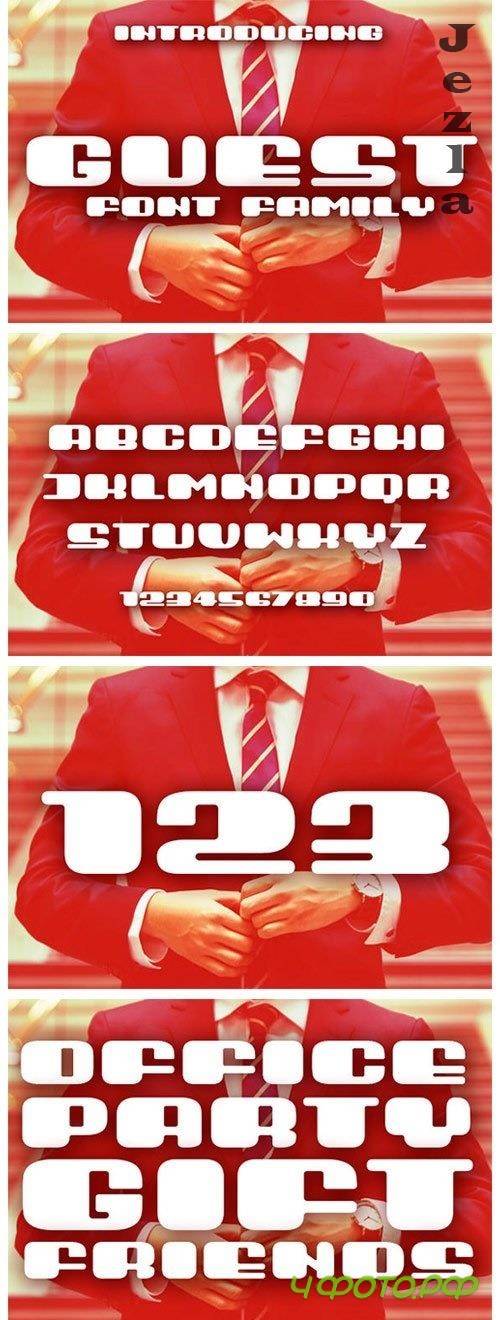
Guest Font
Guest looks bold, yet modern and features chunky and extended characters that will look particularly adept when used in logos, branding, packaging design, and much more. This masterfully designed display font is a true must-have.